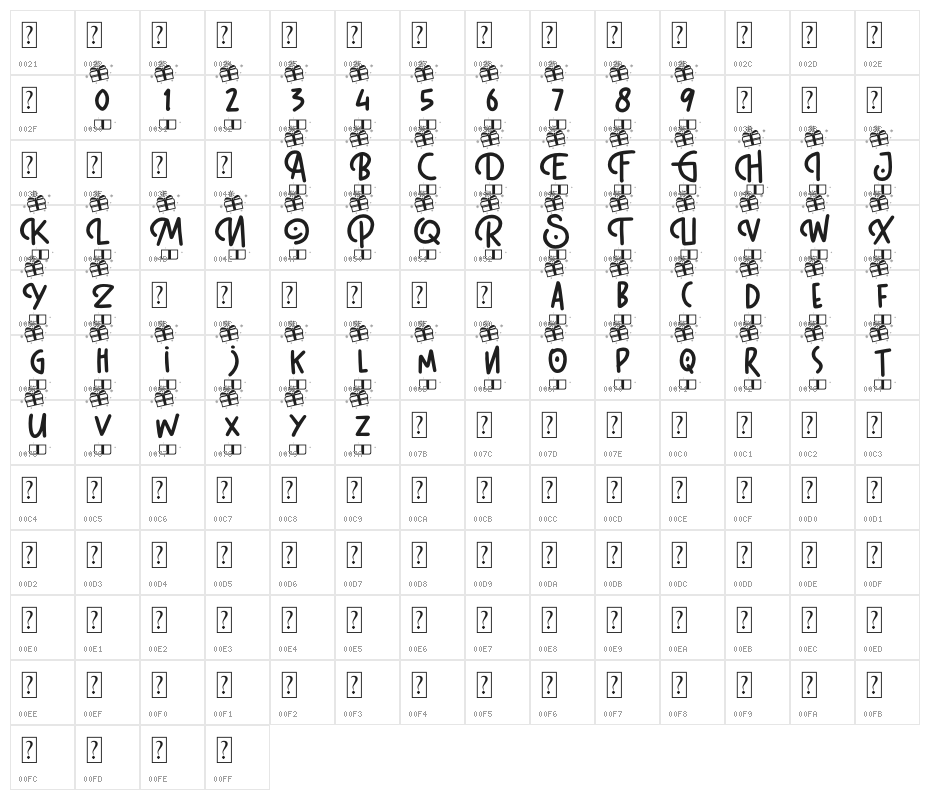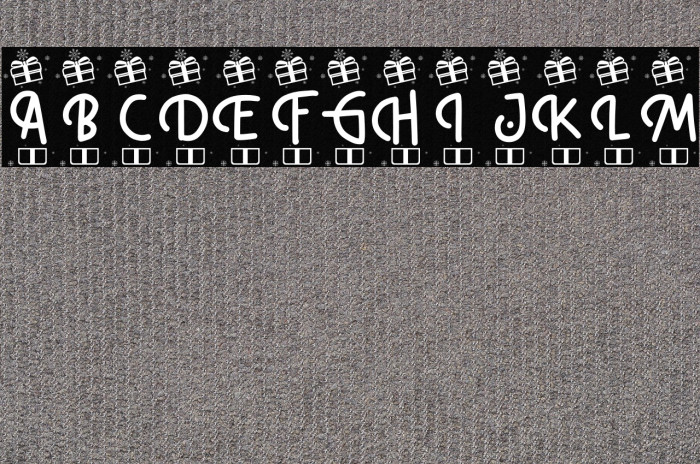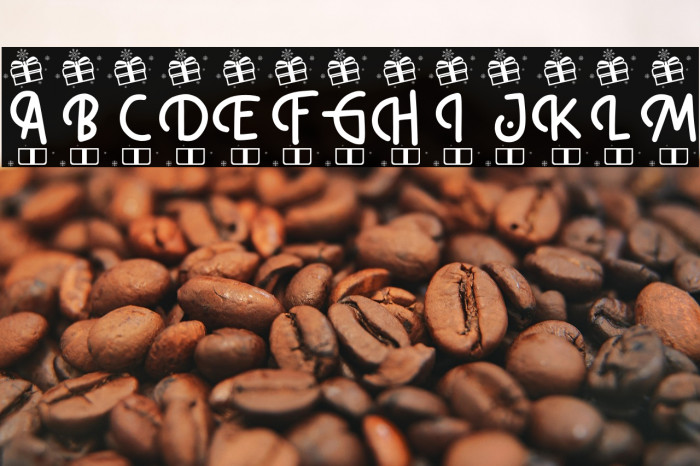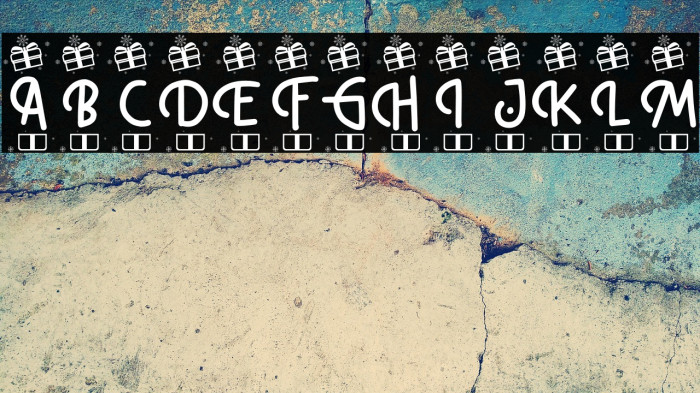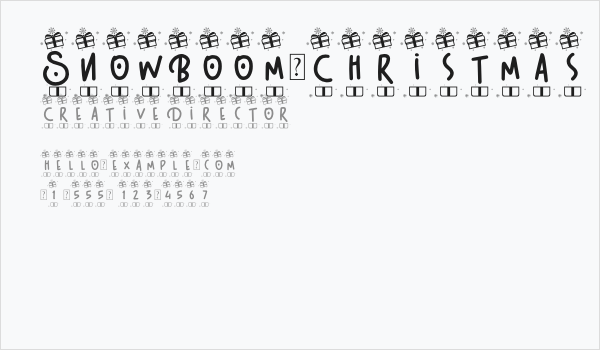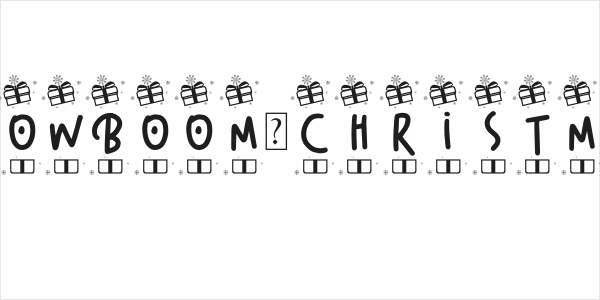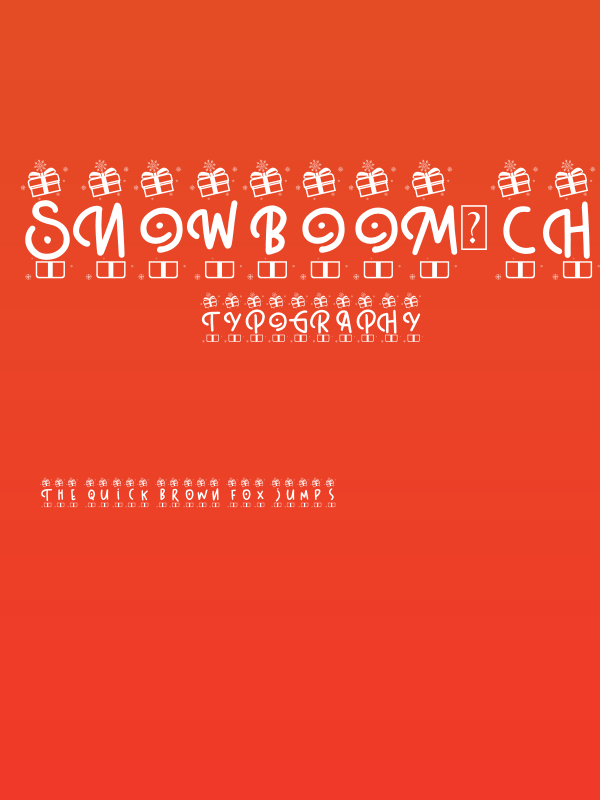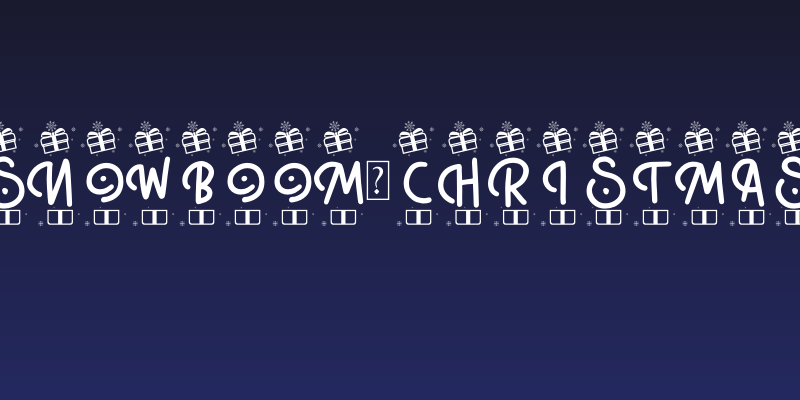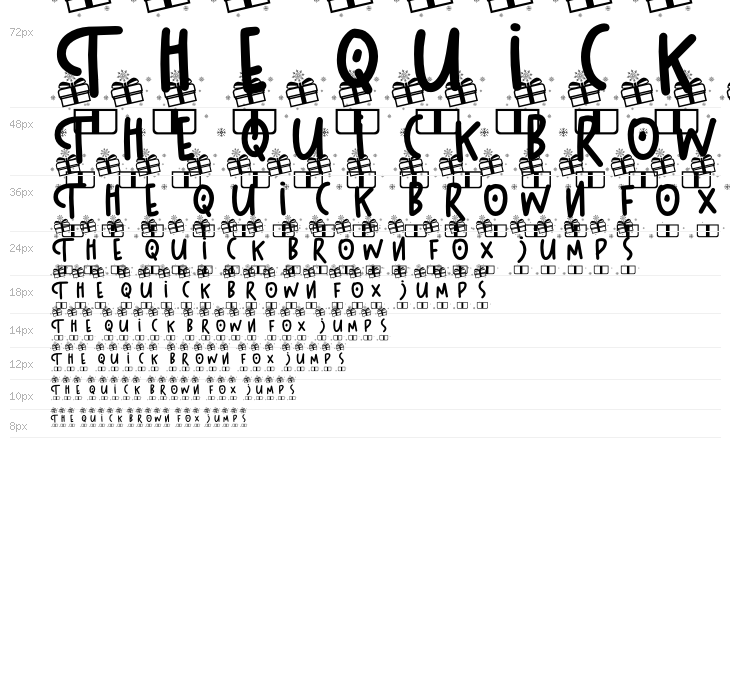
SnowBoom-Christmas Font
This playful and festive font features a whimsical design with a holiday theme. Each character is adorned with decorative elements like gift boxes and snowflakes, adding a cheerful and celebratory touch. The letters are bold and rounded, with a slightly irregular baseline that enhances the casual, handwritten feel. The numbers and special characters maintain the same joyful style, making it perfect for seasonal projects. Its unique design captures the essence of holiday spirit, making it ideal for creating eye-catching and fun designs.
| Proposed Projects | Ideal for holiday greeting cards, festive banners, seasonal event invitations, and Christmas-themed advertisements. |